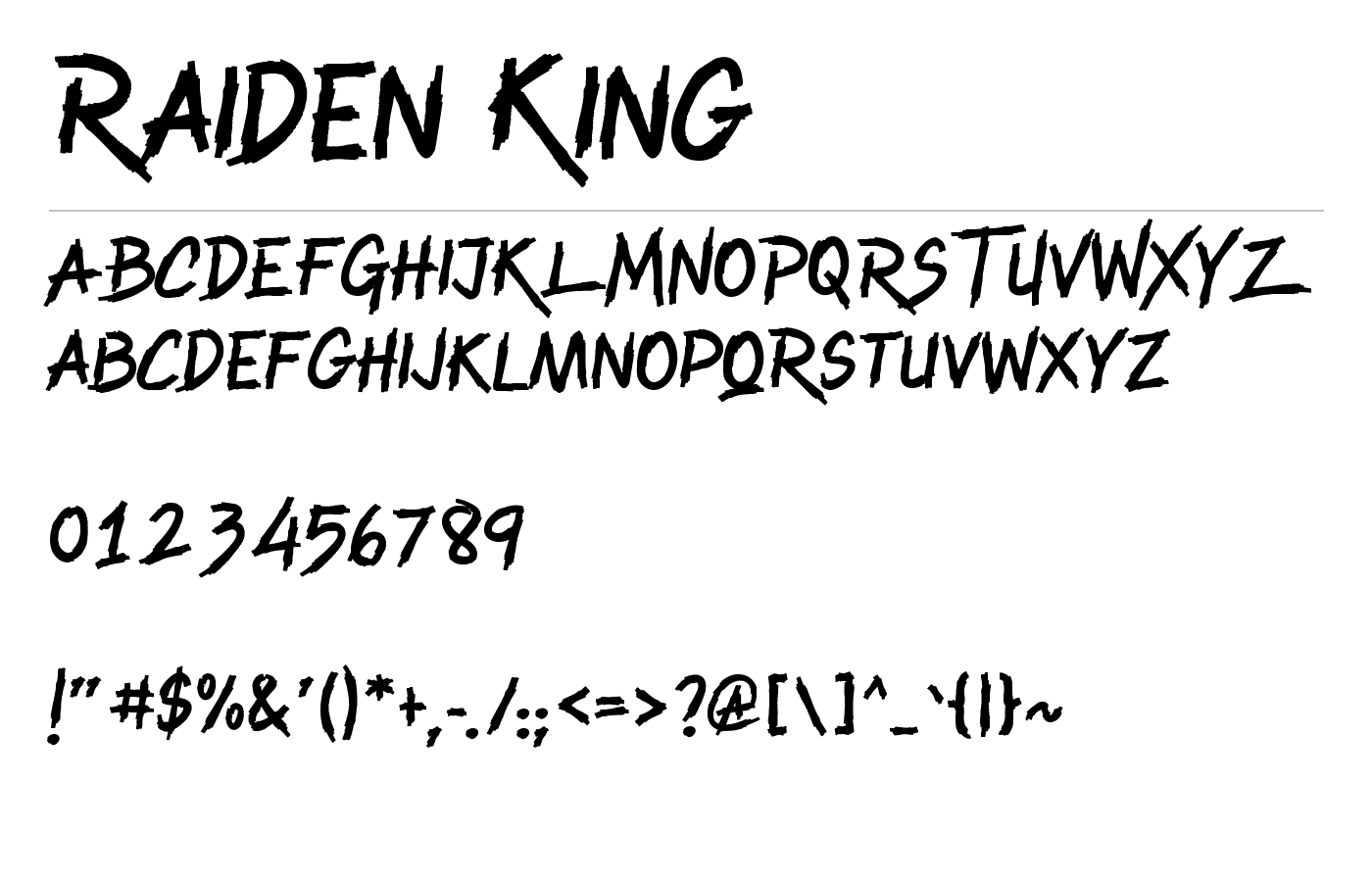
Raiden King is a bold, hand-brushed sans serif font with a rough, energetic texture that feels dynamic and expressive. Its uppercase-focused design with irregular strokes and a slightly condensed look makes it perfect for eye-catching headlines, posters, and branding that aims to convey strength and a rugged, adventurous personality. This font works well in creative or edgy contexts where a handcrafted, impactful style is desired.
Raiden King Font
About Raiden King Font